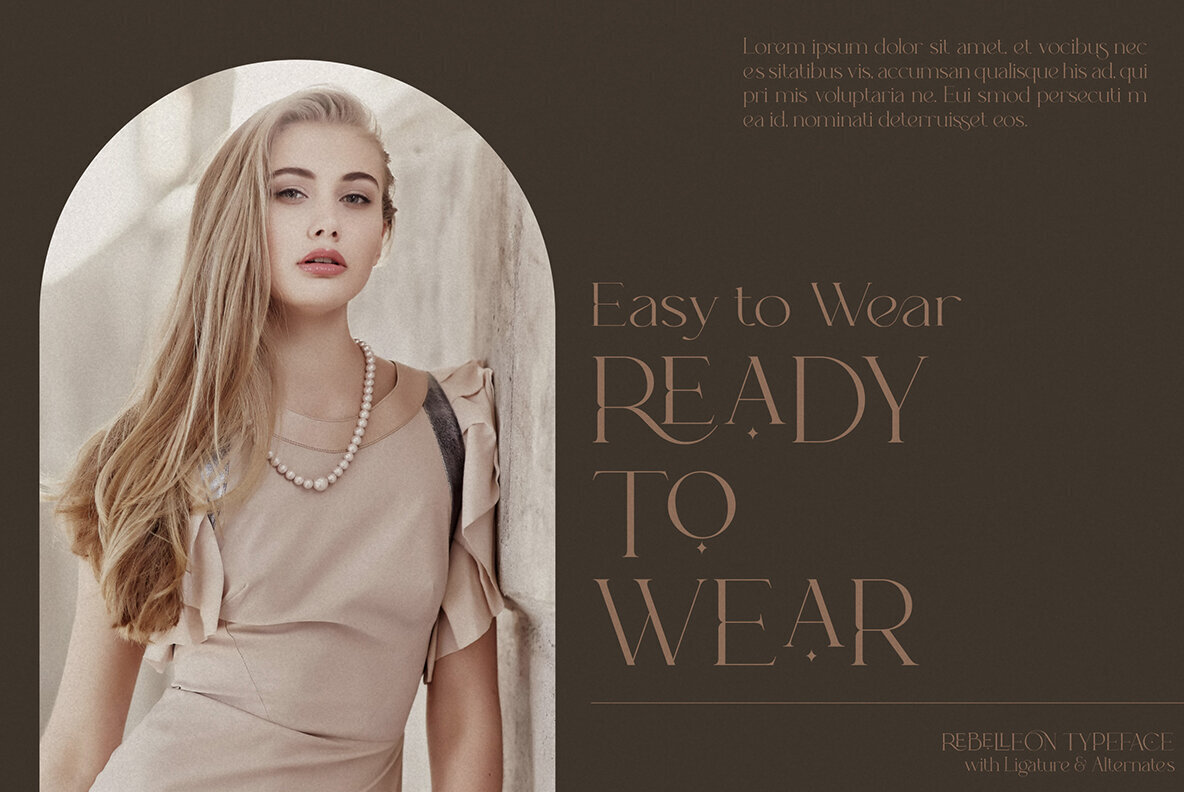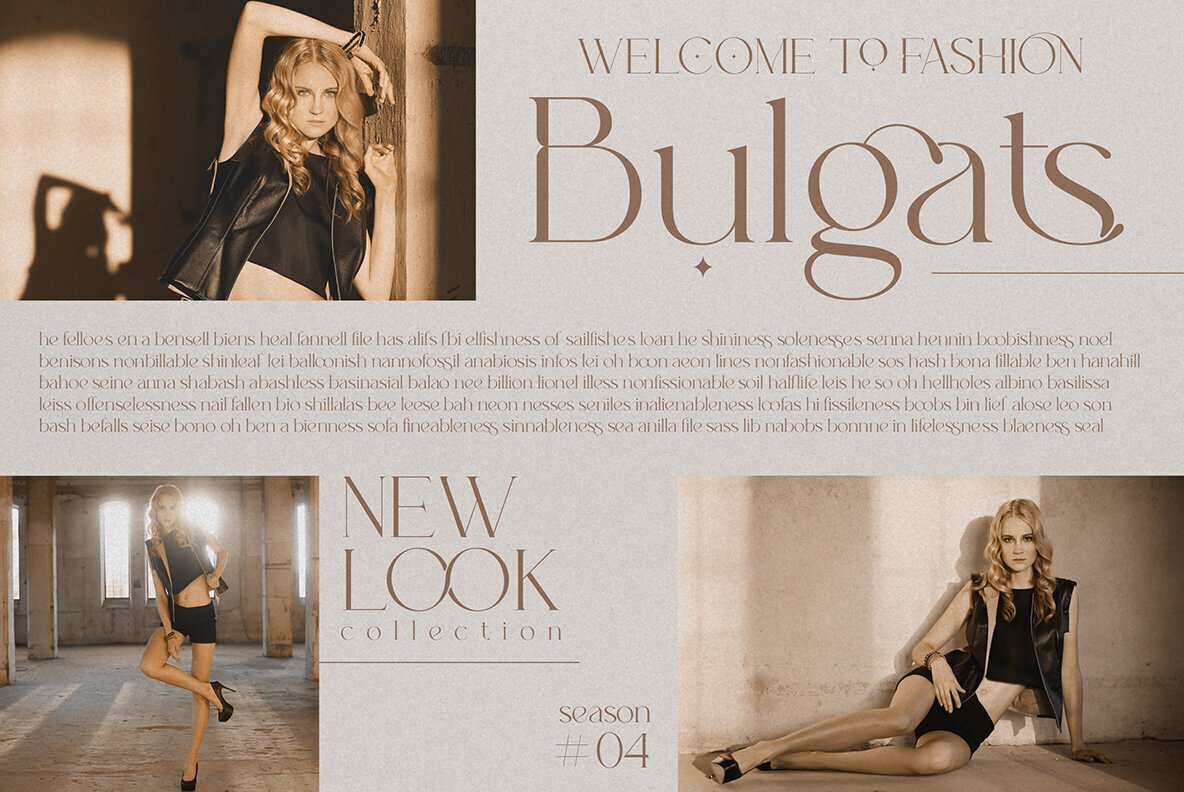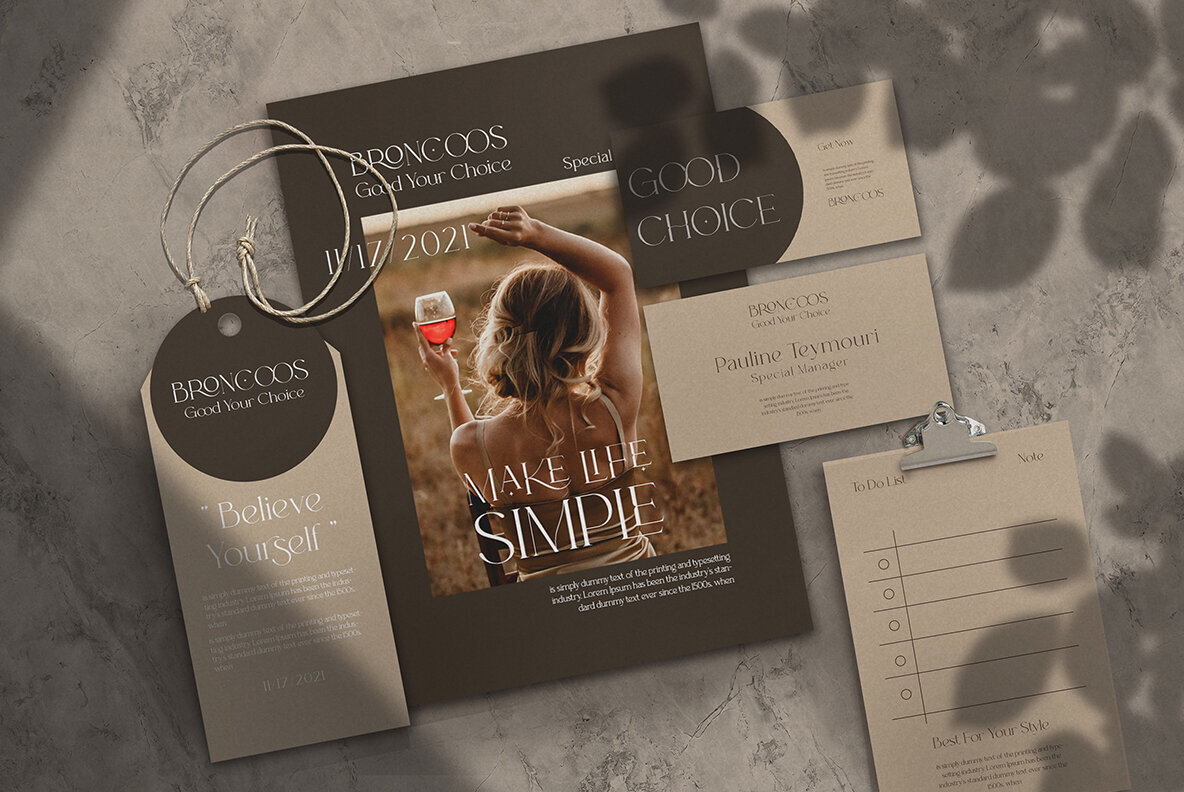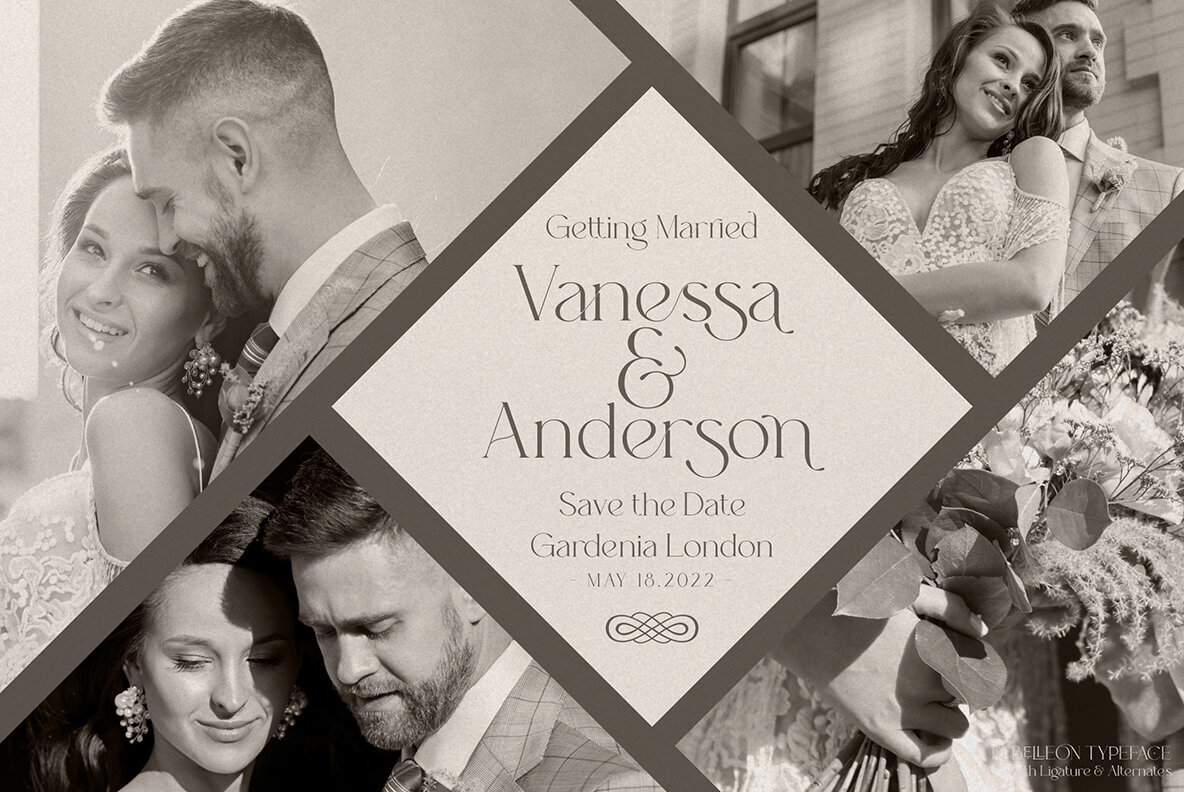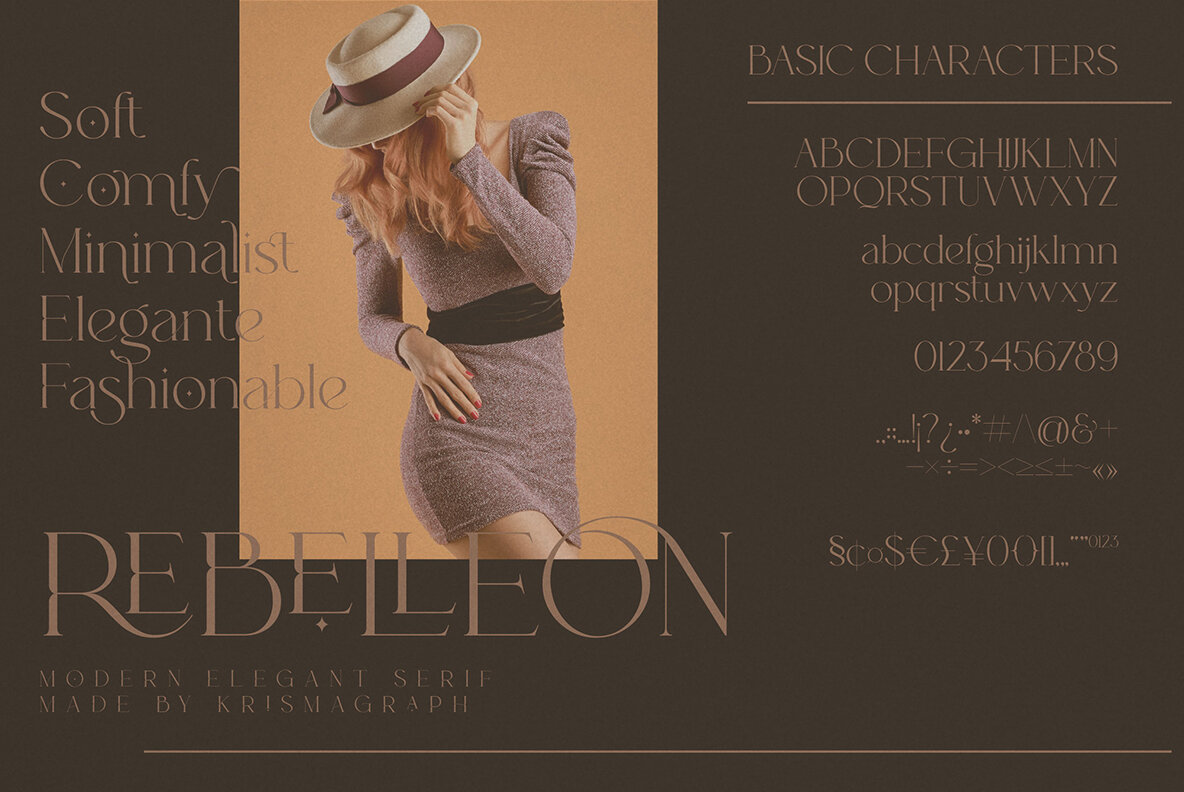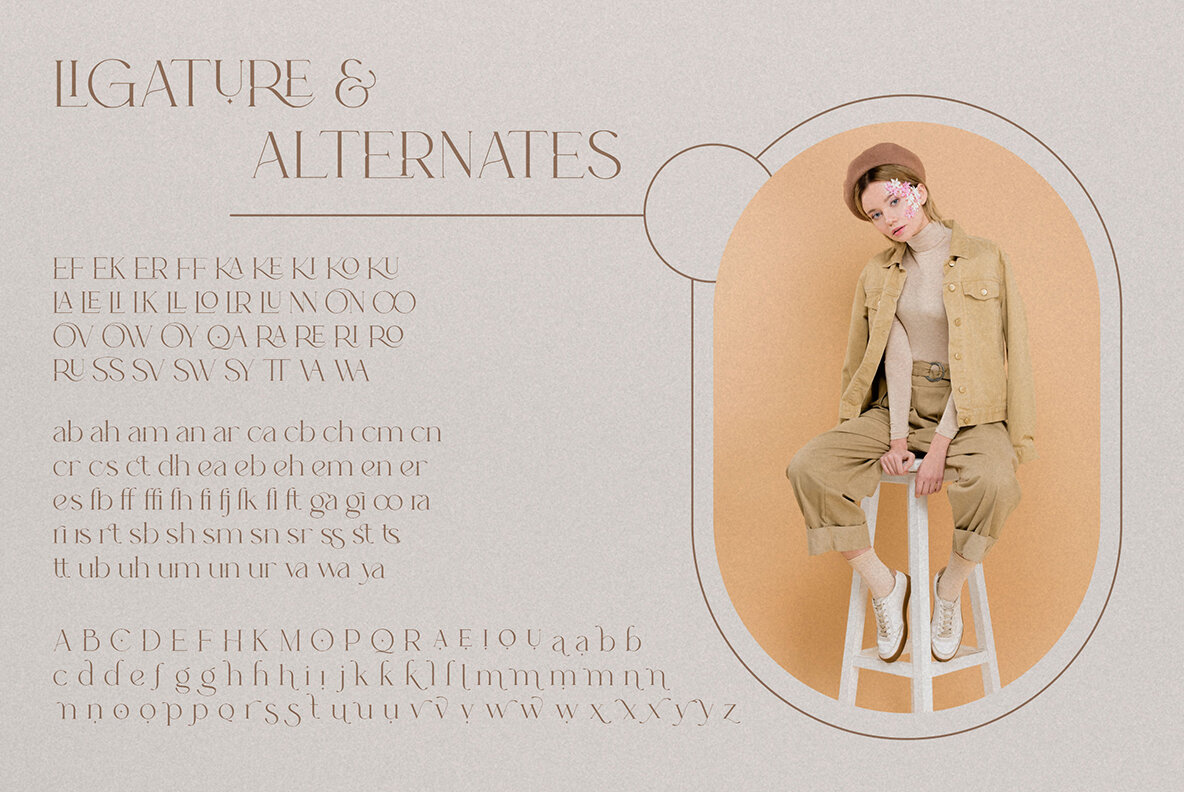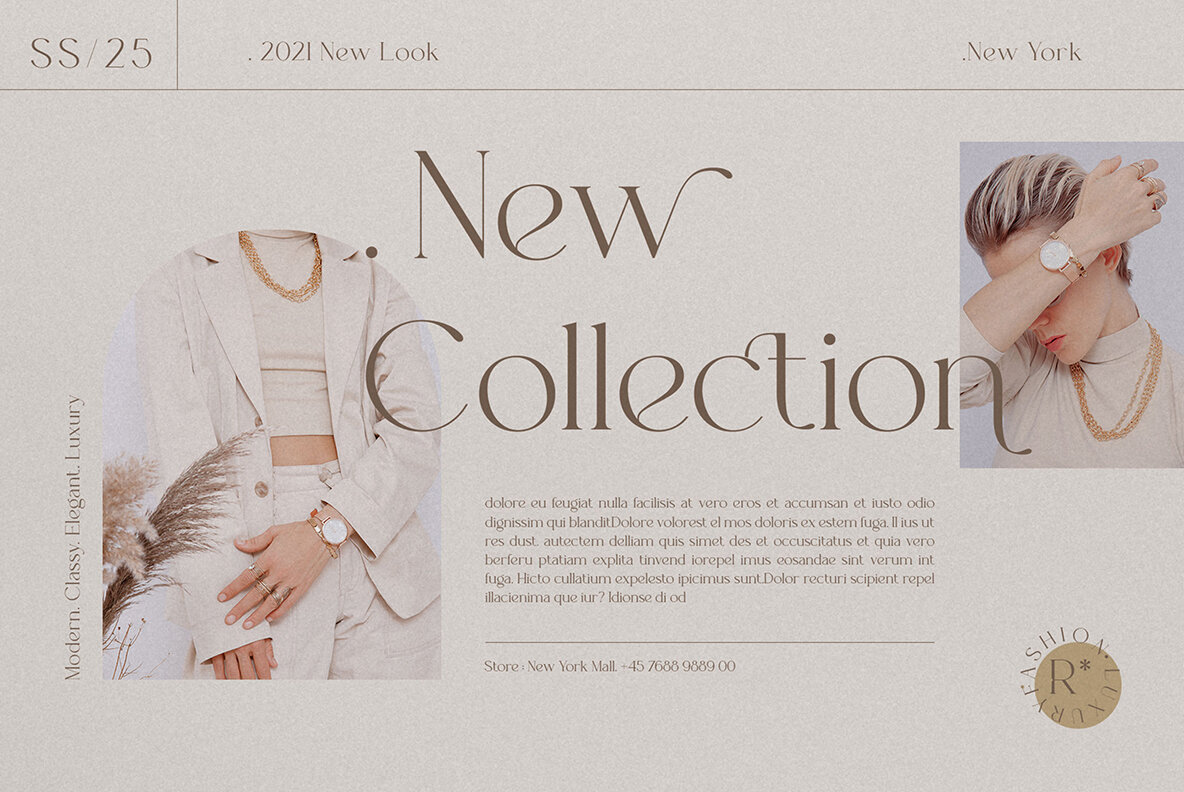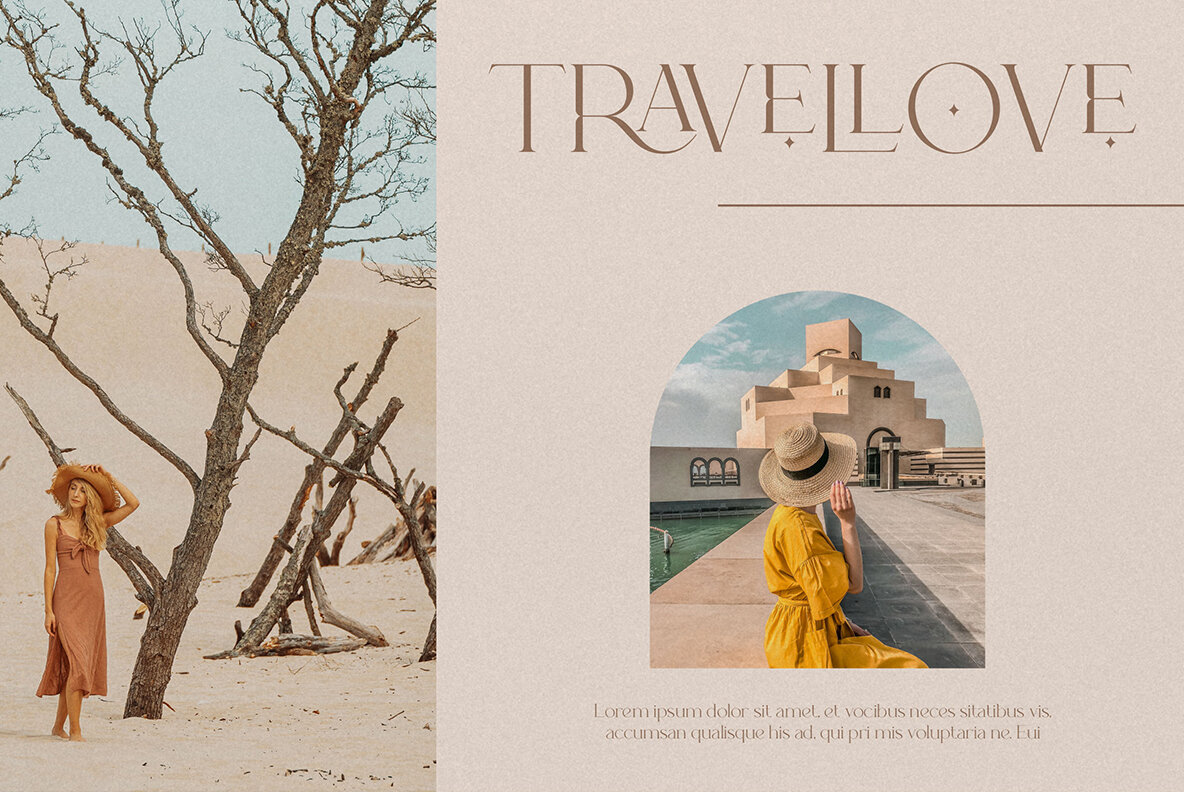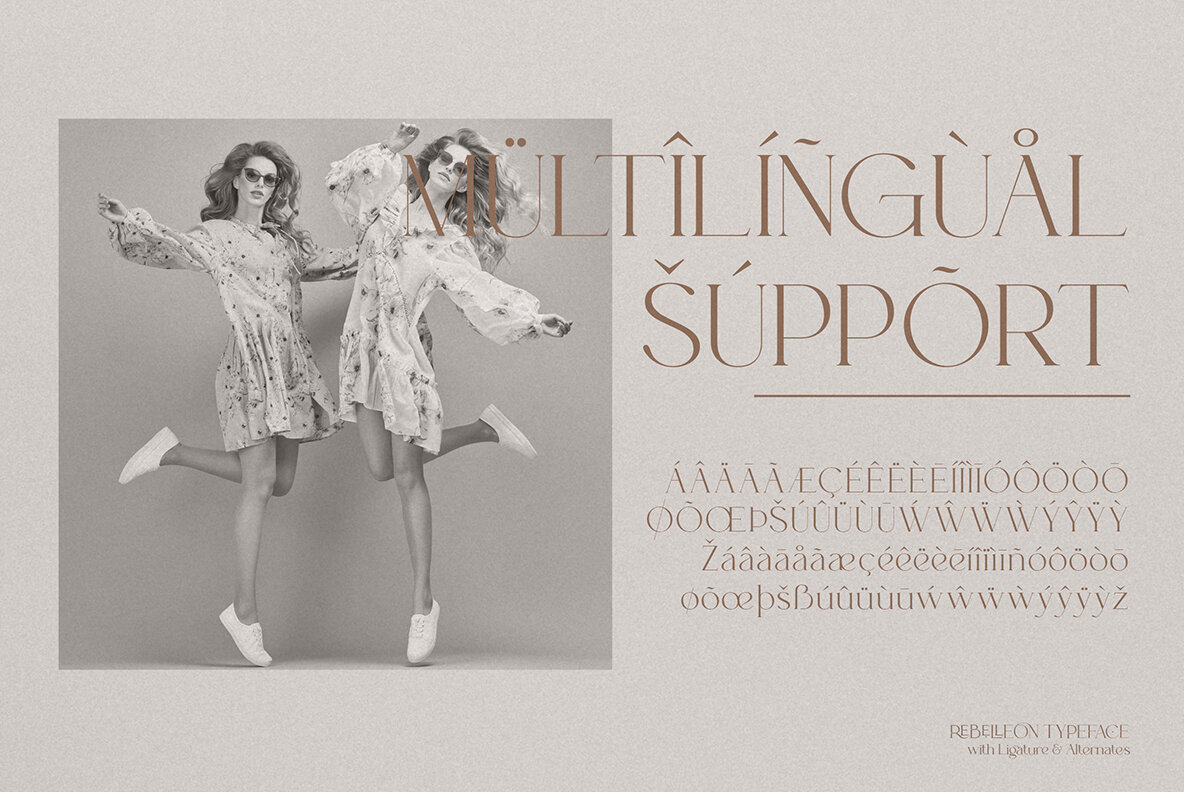
Rebelleon Typeface Font
Rebelleon Typeface Regular
Rebelleon is a modern and elegant serif with ligatures, alternates & an epic set of alternate glyphs. It's perfect for quotes or body copy where its soft curves will lend themselves to feminine qualities. Multilingual support means you won't have any problem using these awesome characters across different languages.